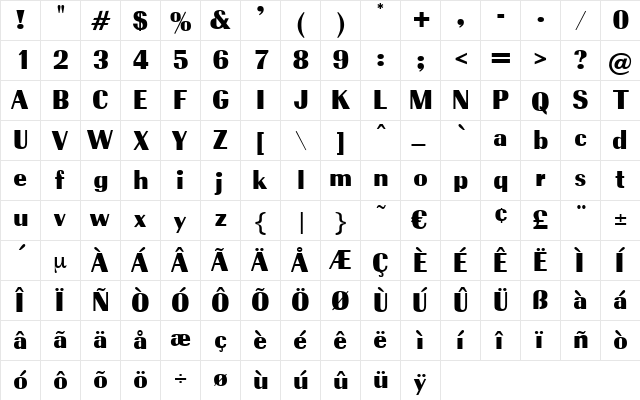
TrabantBold Regular
Design Context for TrabantBold Typeface
TrabantBold offers clean, dependable letterforms without strong stylistic allegiance, making it a practical choice for designers who need flexibility. Its bold stroke weight gives it real presence on the page.